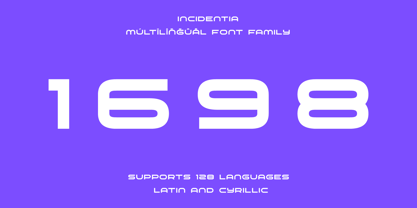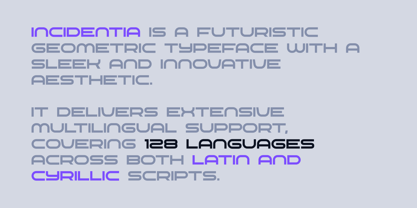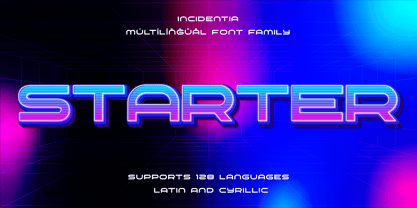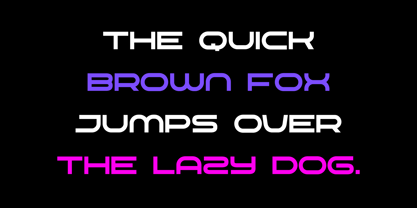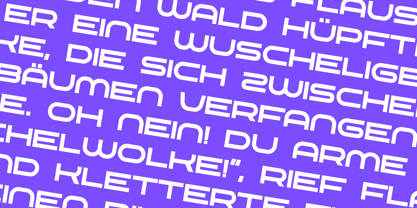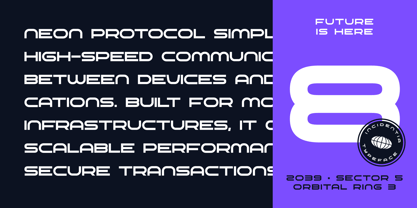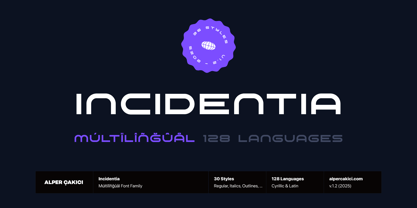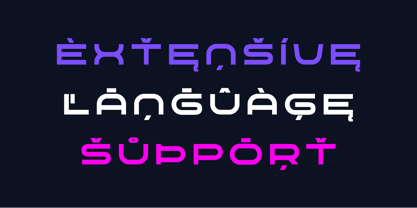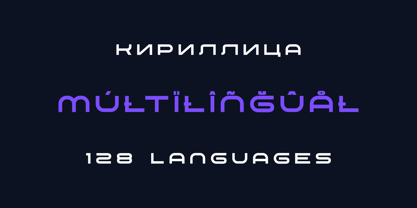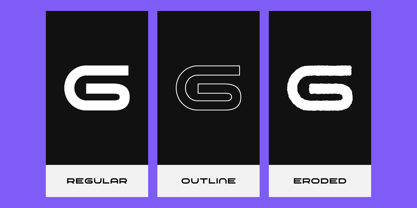
Incidentia
The Incidentia Font Family was designed by Alper Çakıcı and published by AlperCakici. Incidentia contains 30 styles and family package options.
Discover Incidentia, a dynamic type system built to amplify creativity. Crafted with artistic precision and bold experimentation, Incidentia brings together 30 diverse styles ranging from clean to textured, geometric to hand-drawn. Whether you’re designing gritty posters, handcrafted logos, stylized game interfaces, or bold editorial layouts, Incidentia delivers unmatched flexibility and character. From sharp angular forms to rough, brushy textures, every style in Incidentia is meticulously designed to bring depth, mood, and visual impact to your work. ✨ Why Choose Incidentia? 30 Unique Styles: A complete toolbox of aesthetics — Angular, Brush, Eroded, Rough, Pencil, Rounded, Outline, Noise, and more. Creative Range: Perfect for everything from clean branding to distressed textures and experimental typography. Beautiful Italics: Each italic style is individually crafted for natural flow and visual harmony. Optimized for All Media: Engineered for clarity and quality across print, web, UI, games, and motion graphics. Professional Craftsmanship: Every curve, texture, and edge is designed with precision and artistic intention. Free Updates & Support: Lifetime updates and responsive assistance whenever you need it.